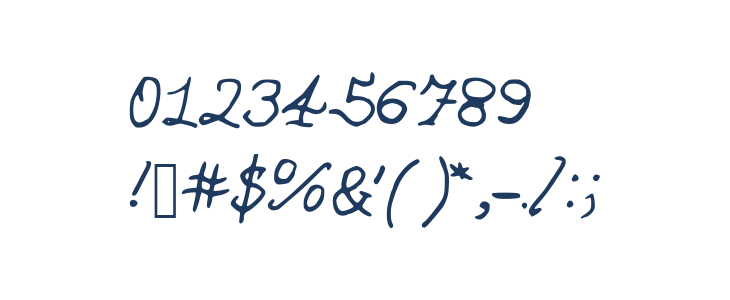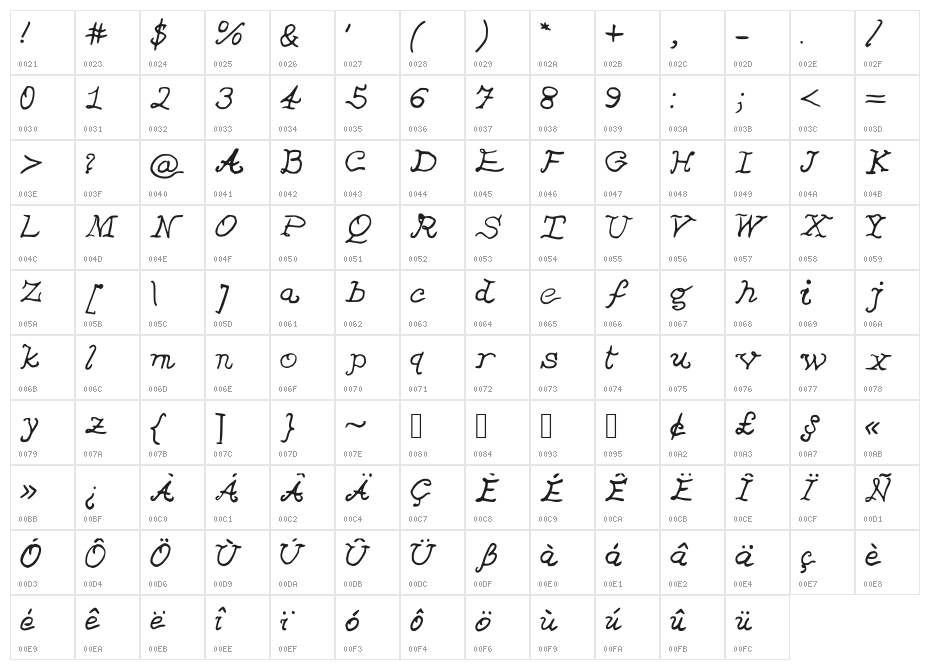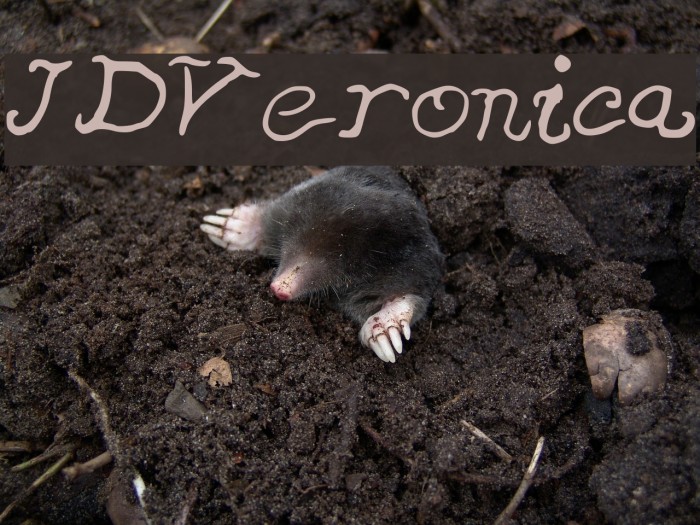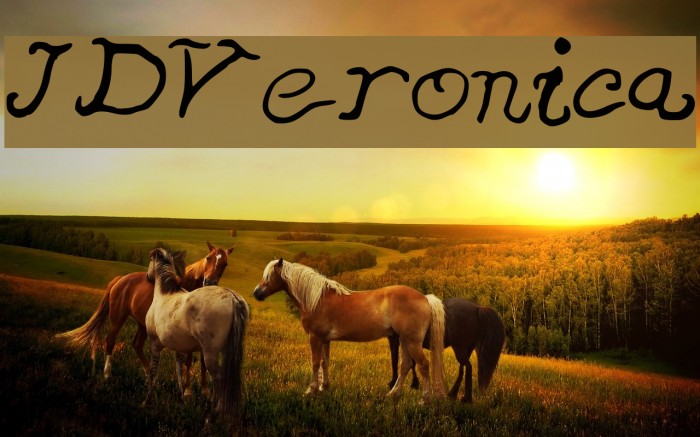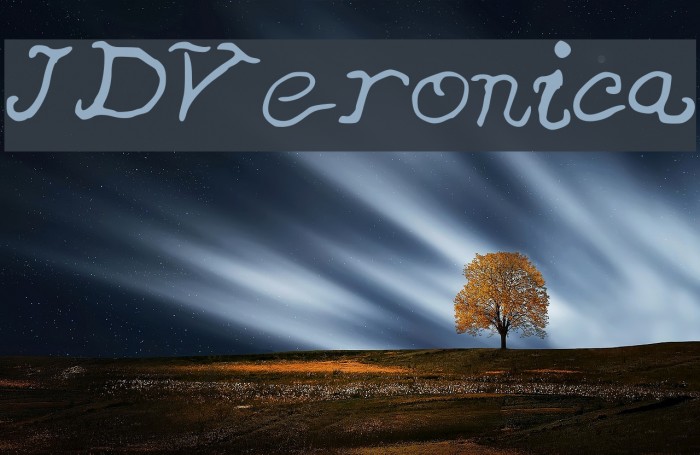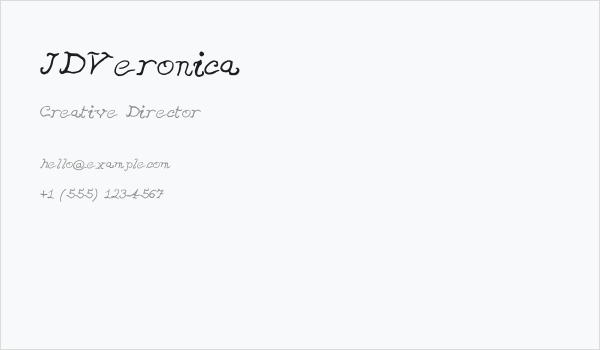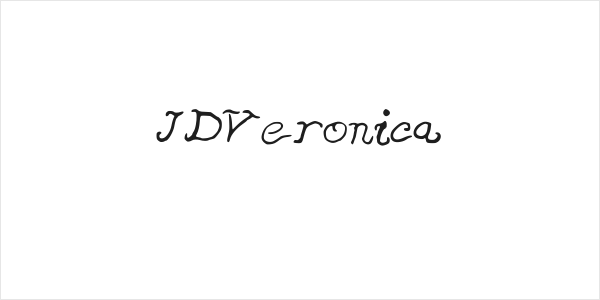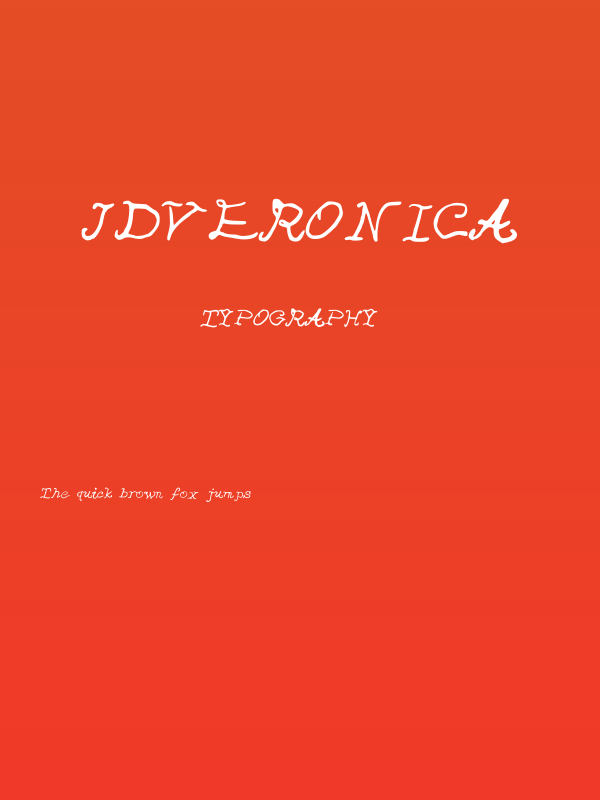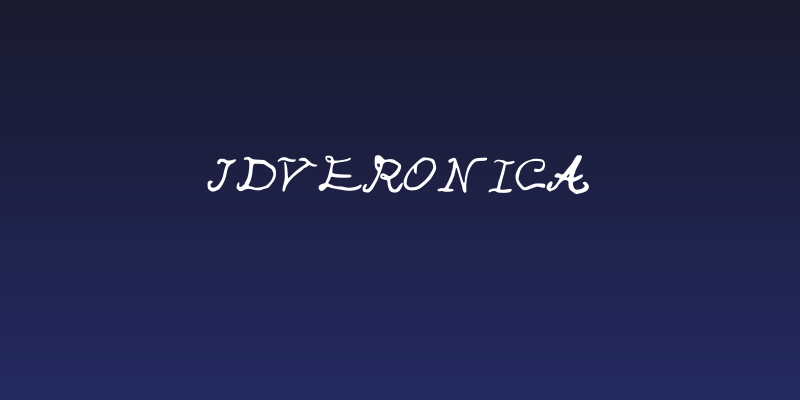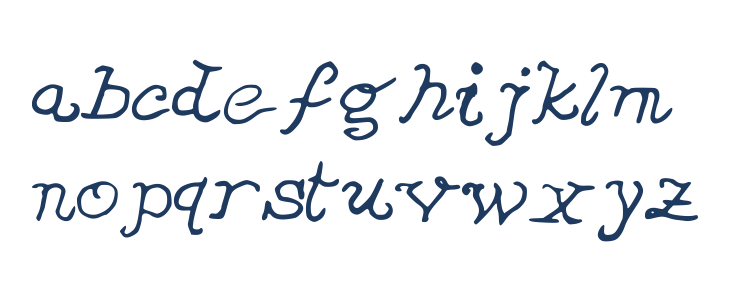
JDVeronica Font
JDVeronica Description
This font features a charming and fluid script style that mimics elegant handwriting. The uppercase letters are bold and slightly slanted, with distinctive loops and curves that add a touch of sophistication. The lowercase letters maintain a consistent flow, with smooth connections between characters, enhancing readability while preserving the handwritten aesthetic. Numbers and special characters are crafted with the same attention to detail, ensuring a cohesive look across all elements. This font's playful yet refined nature makes it suitable for a variety of creative applications.
| Overall Style | Elegant, Handwritten |
| Use Case | Logos, Invitations, Greeting Cards |
| Proposed Projects | Ideal for wedding invitations, greeting cards, logo design, and personal branding projects. |